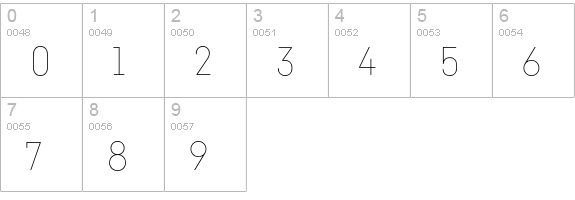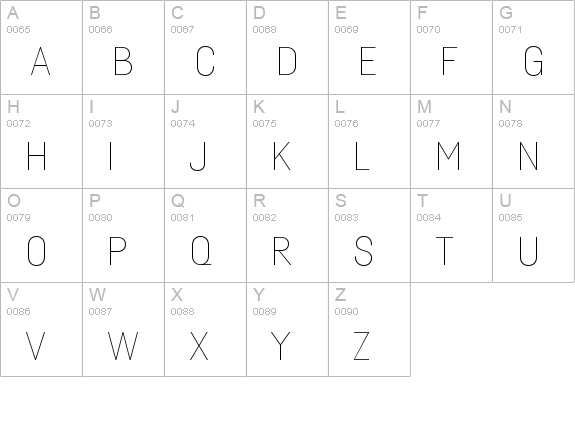
Fabrikat Hairline is an exceptionally fine, almost invisible variant in the Fabrikat typeface family \xE2\x80\x94 well suited to high-end editorial, fashion, and luxury display use.
Fabrikat Hairline font is a stylish and modern typeface that exudes sophistication and elegance. With its ultra-thin lines and sleek design, this font is perfect for creating a sleek and contemporary look in your designs. The delicate strokes and clean shapes of Fabrikat Hairline make it ideal for use in fashion, beauty, and luxury branding projects. What makes Fabrikat Hairline even more appealing is that it is available for free download at FontsMarket.com. This means you can easily access this stunning font and use it in your projects without any cost. Whether you're designing a logo, website, or print material, Fabrikat Hairline will add a touch of refinement and class to your work. Download it now and elevate your designs with this exquisite typeface.